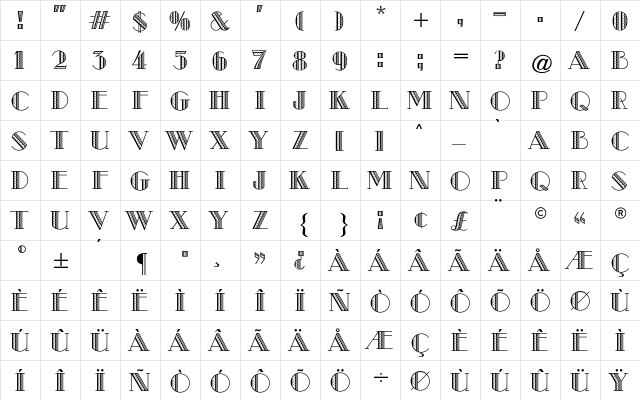
Modernistic CG Regular
Design Context for Modernistic CG Typeface
Modernistic CG is a composed and adaptable typeface that performs quietly and consistently across a wide range of design contexts.